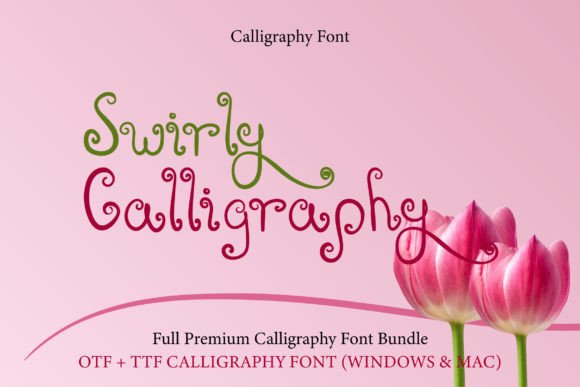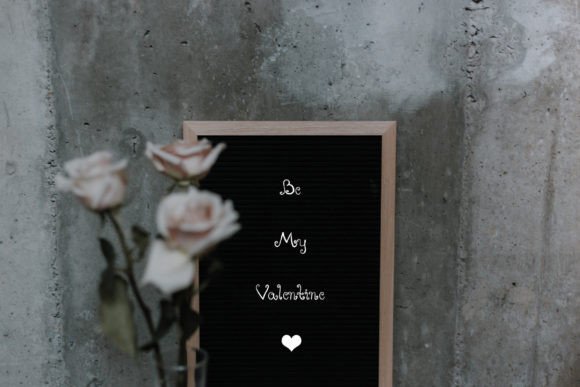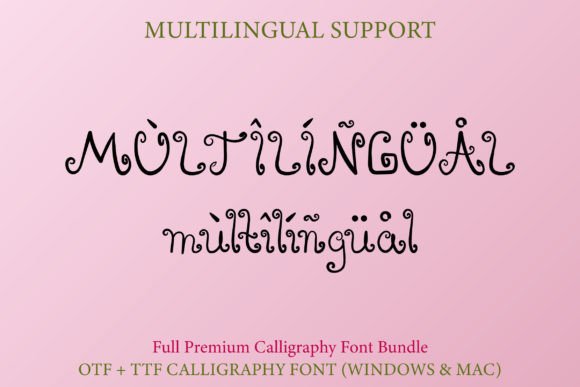
Introduction to Lovely Elf Font
Lovely Elf is a modern and elegant swirly font.
Lovely Elf is a perfect font for any projects such as wedding invitation, christmas design, branding, logo, lettering, crafting, sticker, sublimation, and many more .
Key Features of Lovely Elf Font
Why Choose Lovely Elf Font?
Lovely Elf Font offers exceptional quality and versatility, making it a valuable addition to your design toolkit. Whether you’re creating for personal projects or commercial use, Lovely Elf Font delivers professional results.